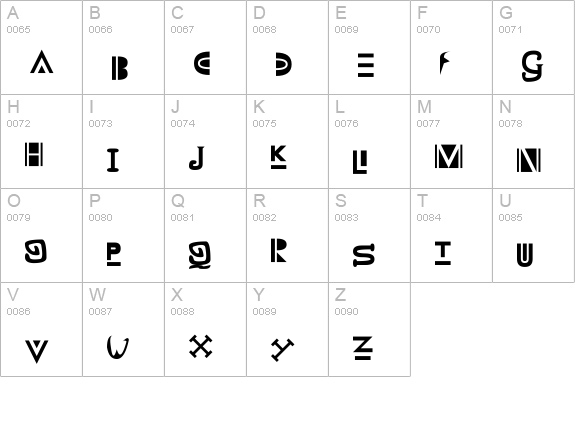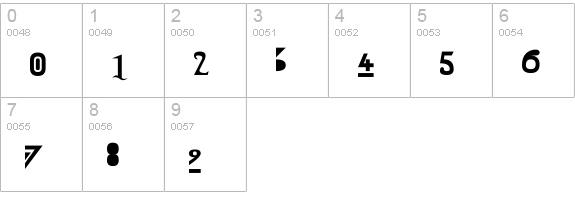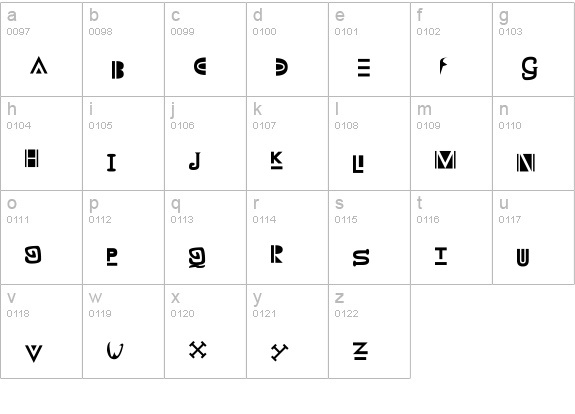
Zany Whatever It Means Font Details
Introducing Zany Whatever It Means font, a whimsical and playful typeface that exudes creativity and fun. With its quirky and unpredictable design, this font is perfect for adding a touch of eccentricity to your projects. Whether you're working on a children's book, a party invitation, or a branding project that needs a unique and eye-catching font, Zany Whatever It Means has got you covered. What's even better is that this font is available for free download at FontsMarket.com! Yes, you read that right - you can get your hands on this one-of-a-kind font without spending a dime. So go ahead, unleash your creativity and let Zany Whatever It Means bring a touch of zaniness to your designs.